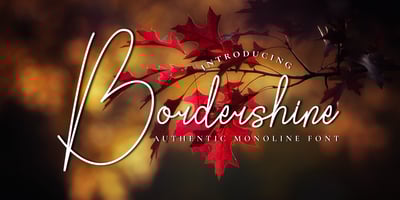
Bordershine
Bordershine font
Bordershine Font Family was designed by Muhammad Khoirul Amal and published by CBRTEXT Studio. Bordershine contains 1 styles and family package options. Bordershine Monoline is a modern calligraphy font with mono-line, hand-written and enchanting feel. It’s perfect for branding, wedding invitations, photography, bloggers, logos, greeting cards and more.